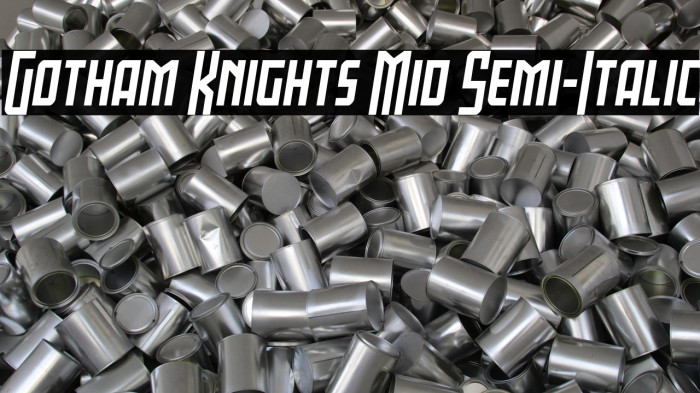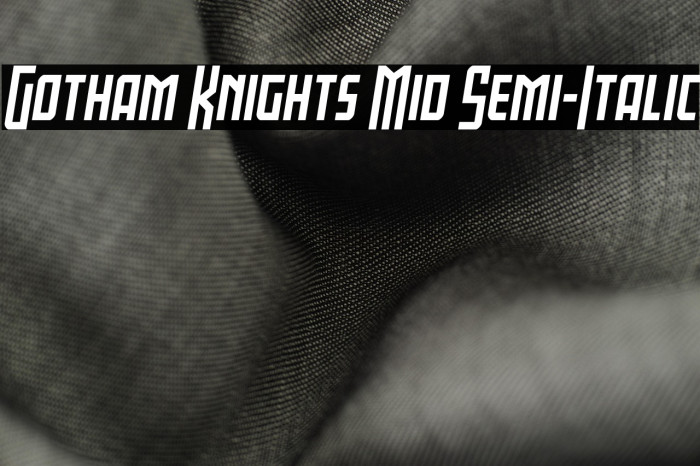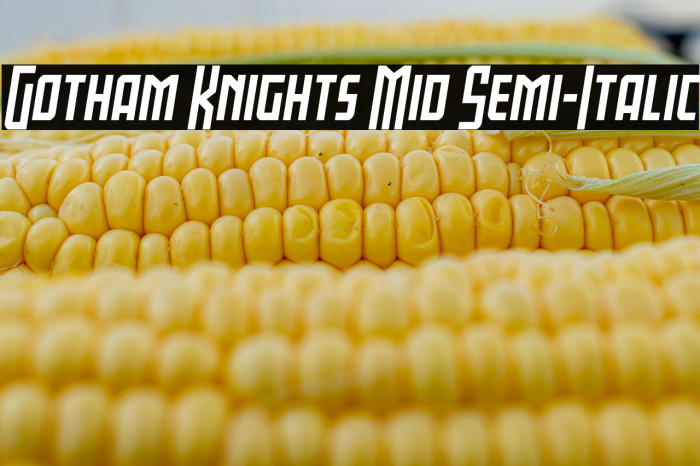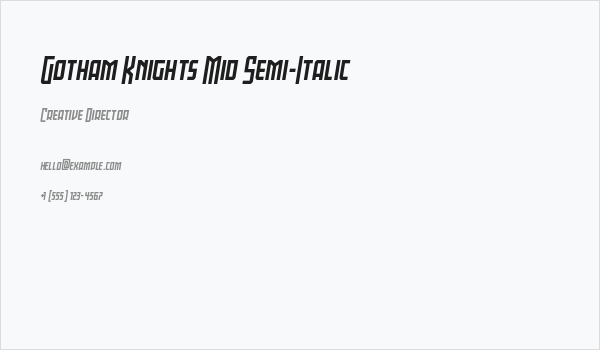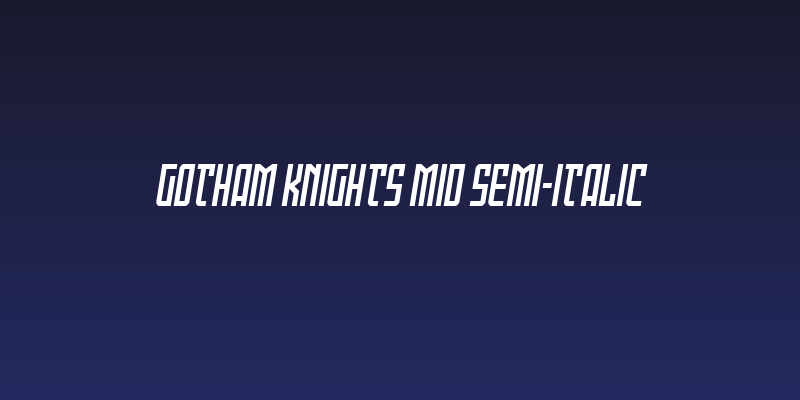
Gotham Knights Mid Semi-Italic Font
Gotham Knights Mid Semi-Italic Description
This font features a bold and dynamic style with a semi-italic slant, giving it a sense of movement and energy. The characters are designed with a modern, angular aesthetic, featuring sharp edges and a slightly condensed form. The uppercase letters are particularly striking, with a uniform height and consistent stroke width that enhances readability. The numerals and special characters maintain the same angular design, ensuring a cohesive look across all text. This font's unique style makes it suitable for projects that require a strong visual impact.
| Proposed Projects | Ideal for video game titles, movie posters, sports branding, and dynamic logo designs. |